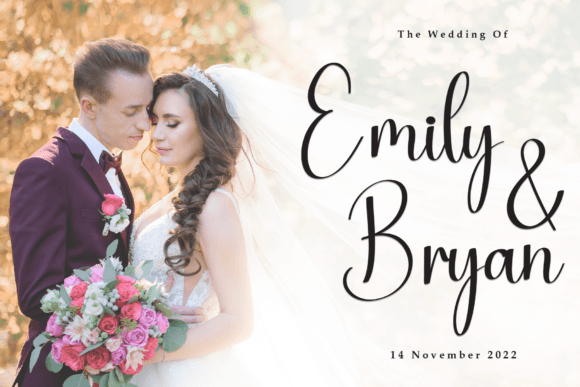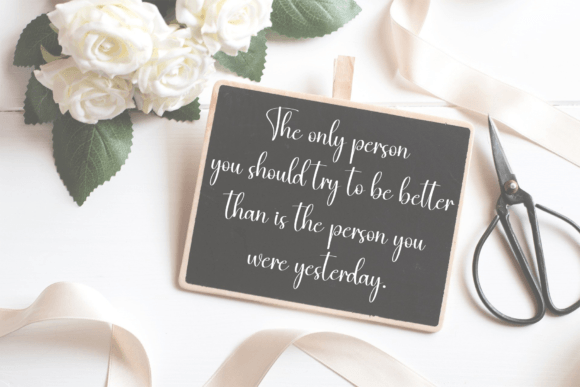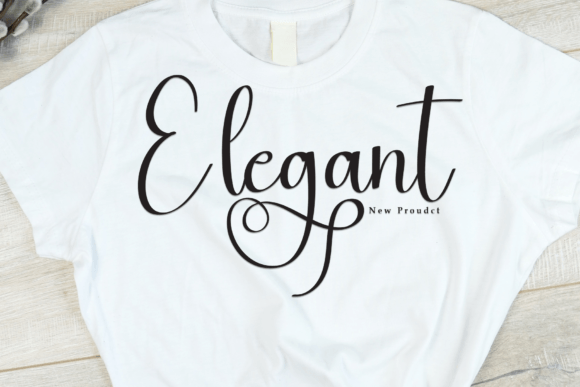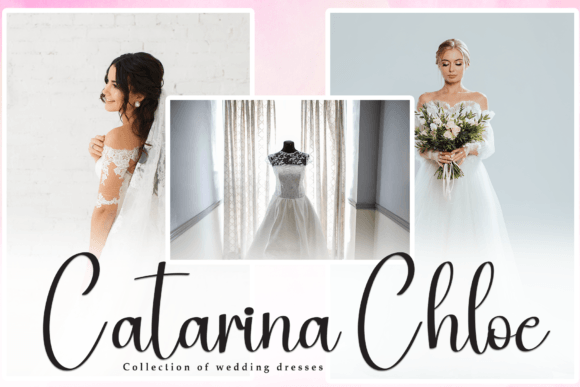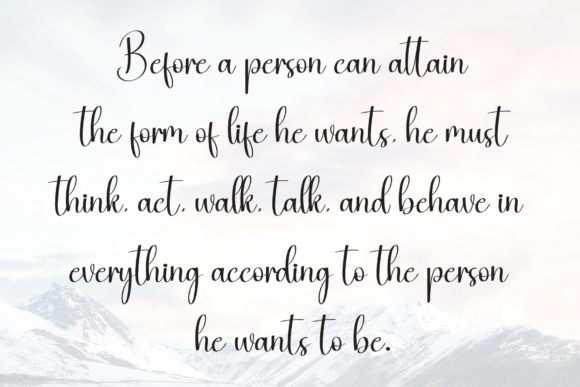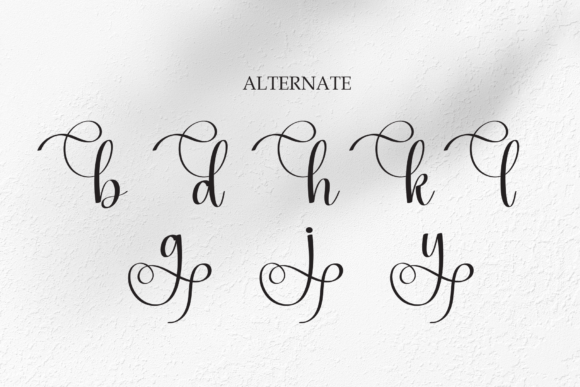
Bright Font: The Perfect Choice for Romantic and Personalized Designs
Bright Font is a beautiful, sweet, and delicate handwritten font that has captured the hearts of designers and crafters alike. Its dainty and joyful appearance makes it an ideal choice for creating romantic and personalized designs, such as wedding invitations, cards, and other special occasion materials. In this article, we’ll dive into the world of Bright Font, exploring its features, uses, and benefits, as well as provide tips and inspiration for incorporating it into your designs.
What is Bright Font?
Bright Font is a type of handwritten font that exudes a sense of elegance and sophistication. Its delicate strokes and whimsical flair make it perfect for adding a touch of romance and whimsy to any design. The font’s sweet and dainty appearance is sure to captivate your audience, making it an excellent choice for designs that require a personal and emotional connection.
Features of Bright Font
• Handwritten appearance: Bright Font boasts a genuine handwritten look, complete with subtle imperfections and variations in stroke width.
• Delicate strokes: The font’s delicate strokes add a touch of elegance and sophistication to any design.
• Whimsical flair: Bright Font’s whimsical flair makes it perfect for adding a playful and romantic touch to designs.
• Easy to read: Despite its delicate appearance, Bright Font is surprisingly easy to read, making it perfect for body text and headlines.
Uses of Bright Font
Bright Font is an incredibly versatile font that can be used in a variety of design applications, including:
• Wedding invitations: Bright Font is an ideal choice for wedding invitations, adding a touch of romance and elegance to your special day.
• Cards and stationery: The font’s sweet and delicate appearance makes it perfect for creating beautiful cards and stationery for special occasions.
• Branding and packaging: Bright Font can add a touch of whimsy and personality to your brand’s packaging and marketing materials.
• Digital designs: The font’s clear and legible appearance makes it suitable for digital designs, such as website headers, social media graphics, and more.
Benefits of Using Bright Font
So, why choose Bright Font for your designs? Here are just a few benefits:
• Unique and eye-catching: Bright Font’s delicate and whimsical appearance sets it apart from more traditional fonts, making your designs stand out from the crowd.
• Emotional connection: The font’s romantic and personalized touch helps create an emotional connection with your audience, making your designs more relatable and engaging.
• Versatile: Bright Font can be used in a variety of design applications, from wedding invitations to branding and packaging.
Tips for Using Bright Font
To get the most out of Bright Font, here are a few tips to keep in mind:
• Pair with complementary fonts: Bright Font pairs beautifully with other fonts, such as serif or script fonts, to create a unique and visually appealing combination.
• Use for headlines and body text: The font’s clear and legible appearance makes it suitable for both headlines and body text.
• Experiment with colors and textures: Bright Font looks stunning in a variety of colors and textures, so don’t be afraid to experiment and find the perfect combination for your design.
Inspiration for Using Bright Font
Still not sure how to use Bright Font in your designs? Here are a few inspiring ideas to get you started:
• Wedding invitation suites: Create a beautiful wedding invitation suite using Bright Font, complete with matching save-the-dates, RSVP cards, and thank-you notes.
• Custom stationery: Design a set of custom stationery using Bright Font, including notecards, journals, and stickers.
• Branding and packaging: Use Bright Font to add a touch of personality to your brand’s packaging and marketing materials, such as business cards, brochures, and product labels.
In conclusion, Bright Font is a beautiful and versatile font that can add a touch of romance and whimsy to any design. Its delicate strokes, whimsical flair, and easy-to-read appearance make it perfect for a variety of design applications, from wedding invitations to branding and packaging. With its unique and eye-catching appearance, Bright Font is sure to captivate your audience and help your designs stand out from the crowd.